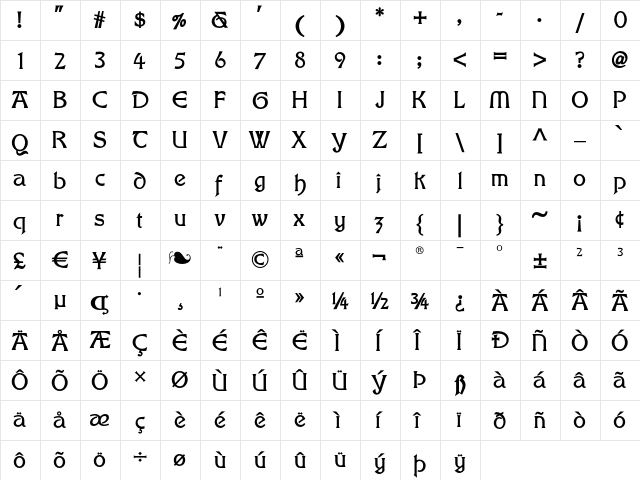
Hupp Antiqua NF Bold
Design Context for Hupp Antiqua NF Typeface
Hupp Antiqua NF is a composed and adaptable typeface that performs quietly and consistently across a wide range of design contexts. The heavy weight commands attention and anchors typographic hierarchies.